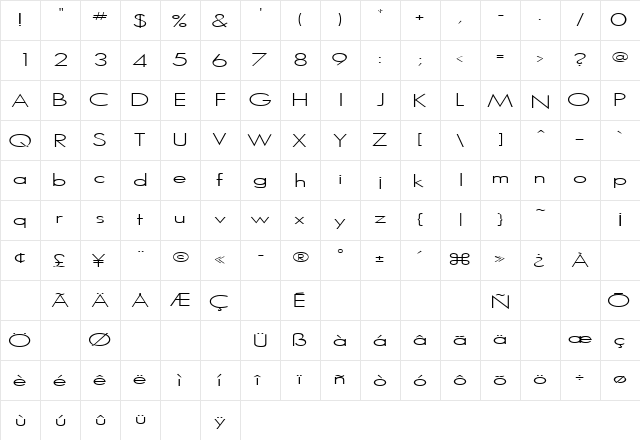
SpressoSSK Regular
Design Context for SpressoSSK Typeface
SpressoSSK offers clean, dependable letterforms without strong stylistic allegiance, making it a practical choice for designers who need flexibility.